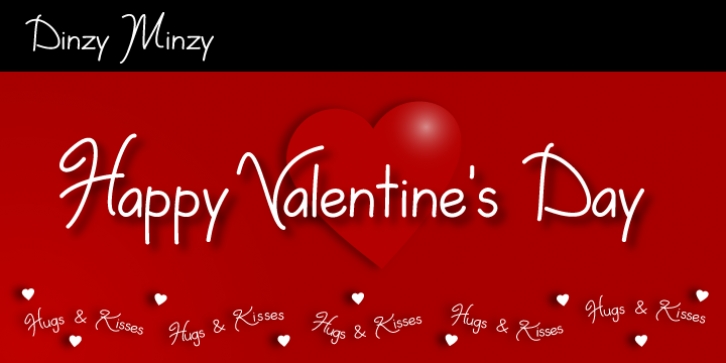
If you are looking for an expressive, witty and whimsical typeface, Dinzy Minzy will beckon to a change of pace for any designer looking to create space, time and lighthearted imagery. This typeface draws you into the message of the mind, lending fresh, new life to party, holiday and grand opening invitations. Whether it’s a poster, a billboard, or the card in the mail, Dinzy Minzy will be sure to capture attention and turn on the senses.